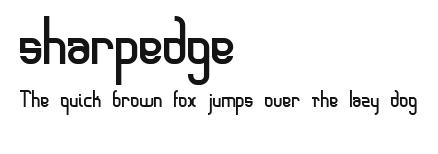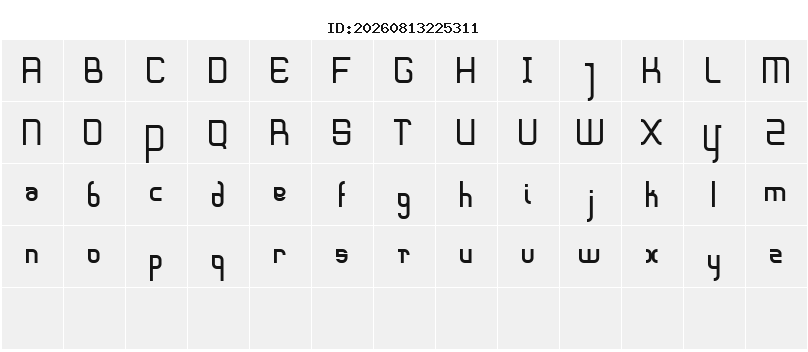
• Font Name: sharpedge
• Full Font Name: sharpedge
• Designer: Gijs van Roij
• Manufacturer: Gijs van Roij
About sharpedge.ttf
sharpedge.ttf is a modern, elegant sans-serif font designed for ultimate readability and visual harmony. Perfect for branding, headlines, web design, and print materials.